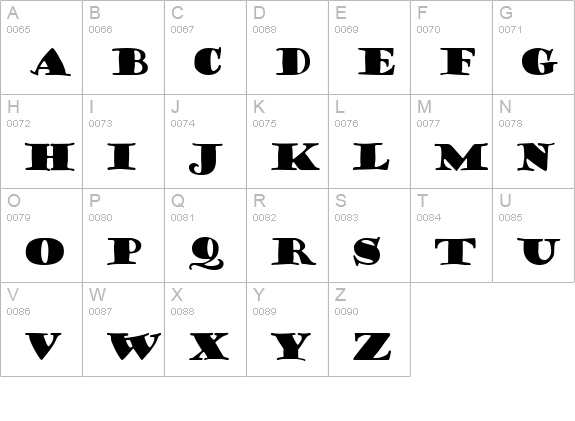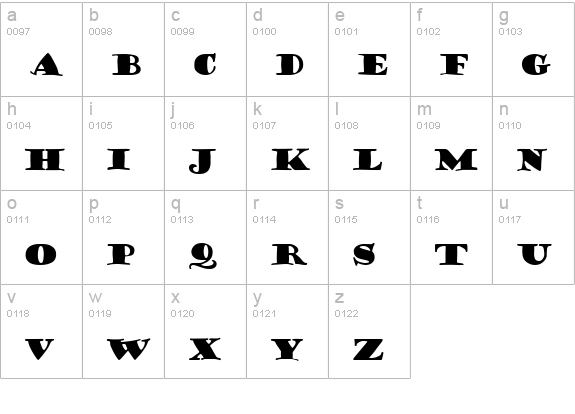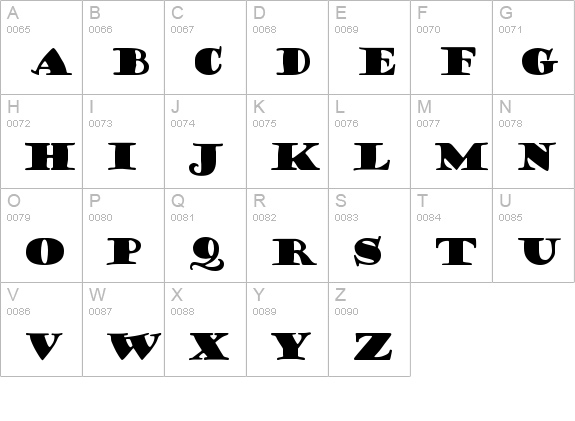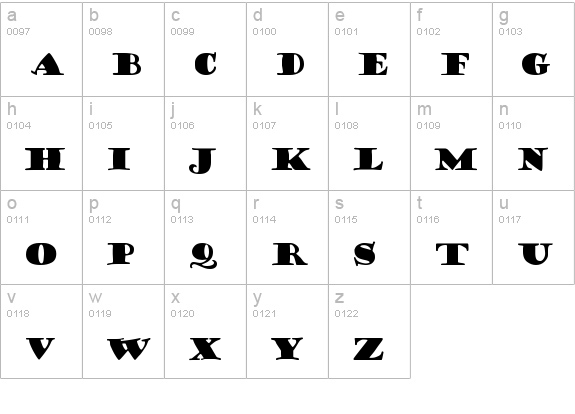
Domaene Font Details
Domaene font is a stunning display typeface that exudes elegance and sophistication. With its unique serifs and graceful curves, Domaene adds a touch of class to any design project. This versatile font is perfect for creating eye-catching headings, logos, and branding materials. What's even better is that Domaene font is available for free download at FontsMarket.com. Whether you're a designer looking to elevate your work or a business owner wanting to enhance your brand image, Domaene font is a fantastic choice. Don't miss out on this opportunity to access this beautiful font for free and take your designs to the next level.